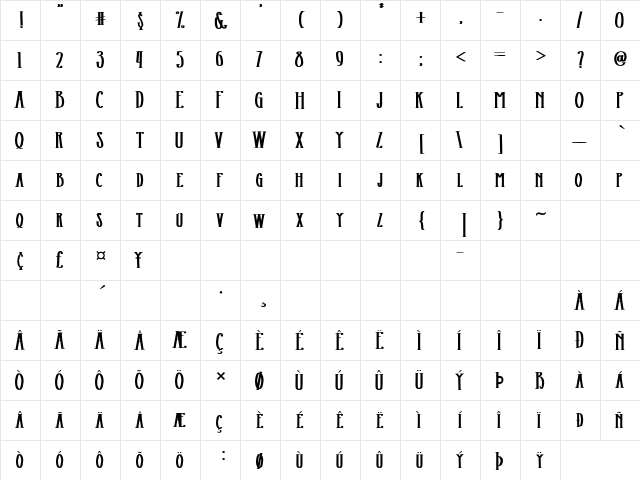
Northway Original Regular
Design Context for Northway Original Typeface
Northway Original is a composed and adaptable typeface that performs quietly and consistently across a wide range of design contexts.